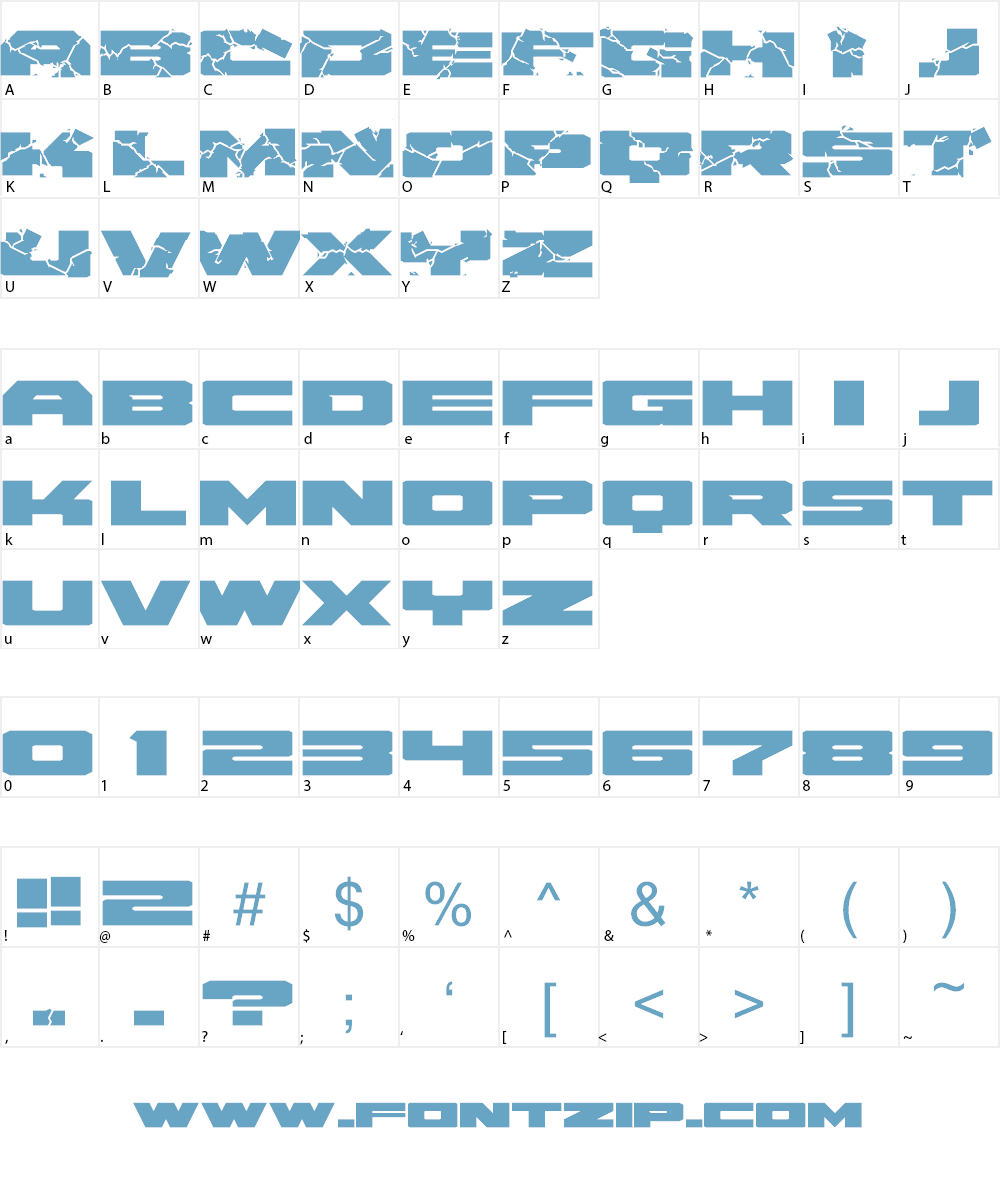
Don't get this font angry. You wouldn't like it when its angry. UC is cracked, LC is solid. Cracked period = "," Cracked exclamations = "@" Cracked questionmark = "/"